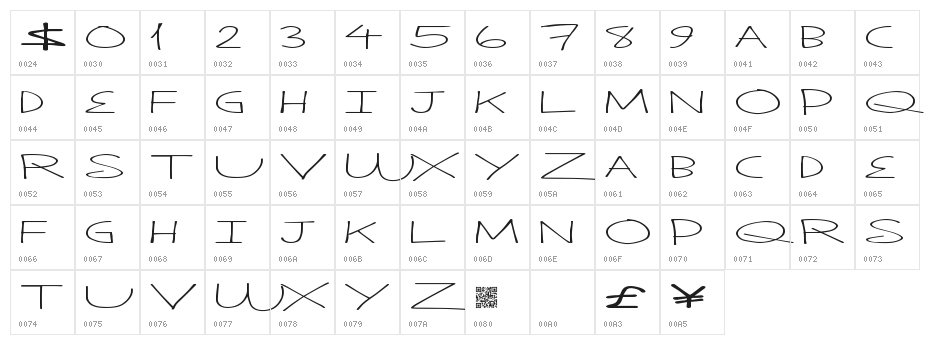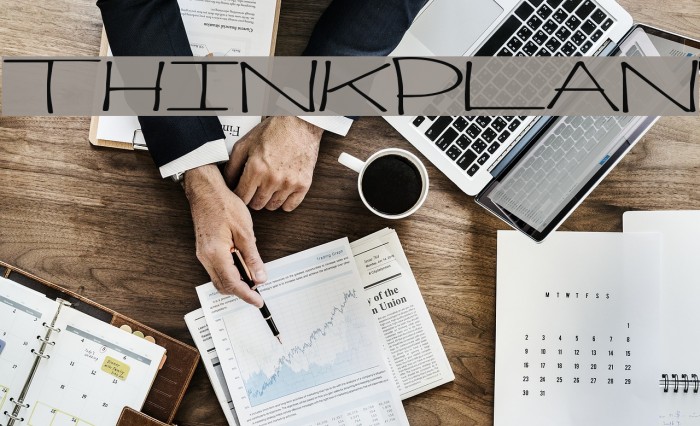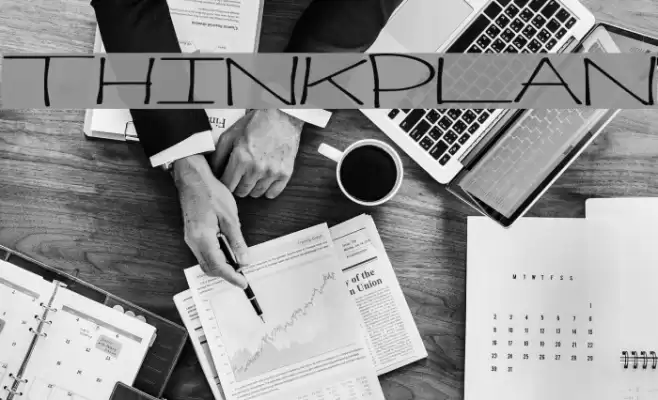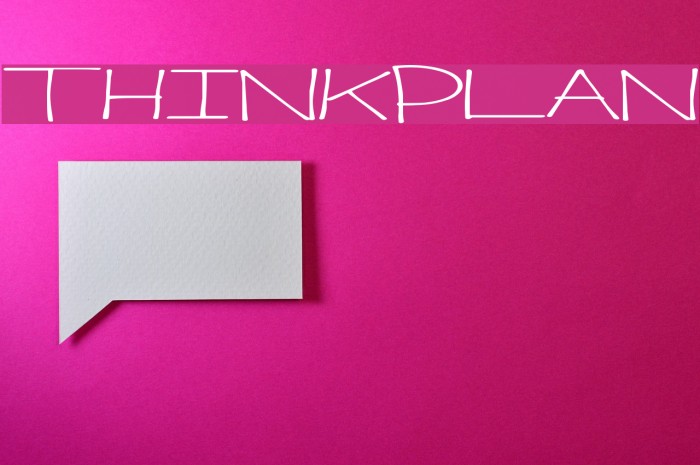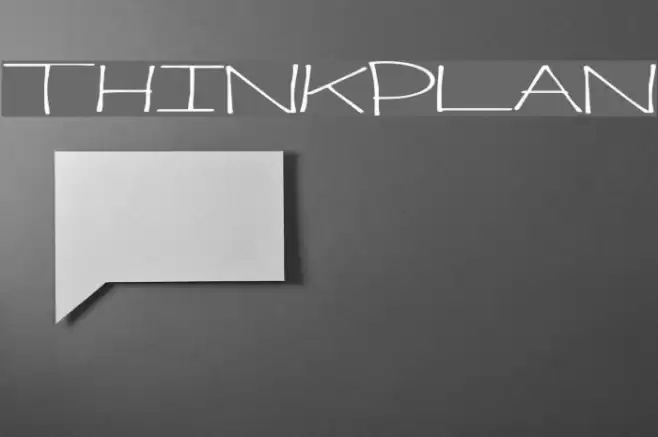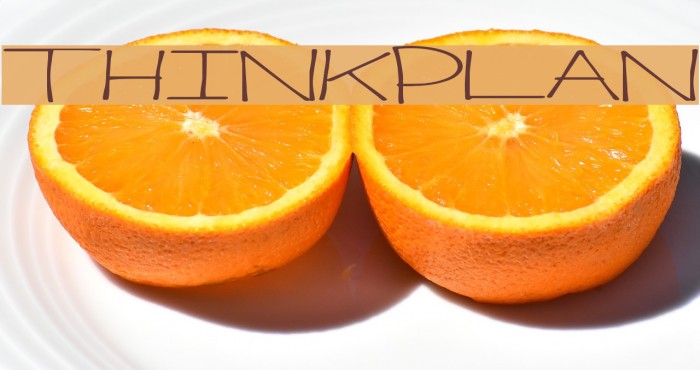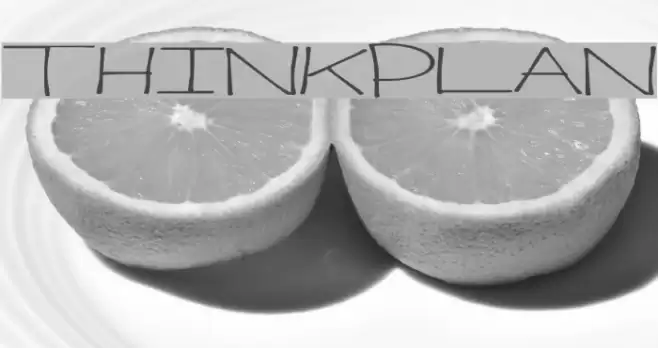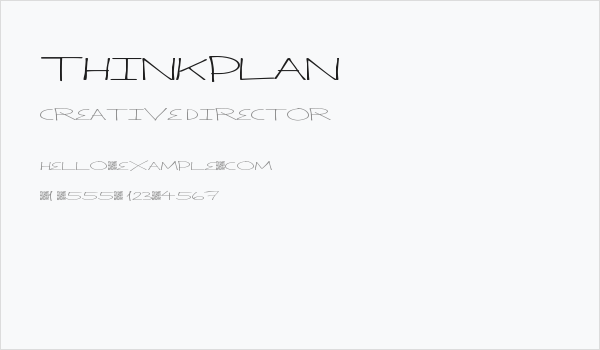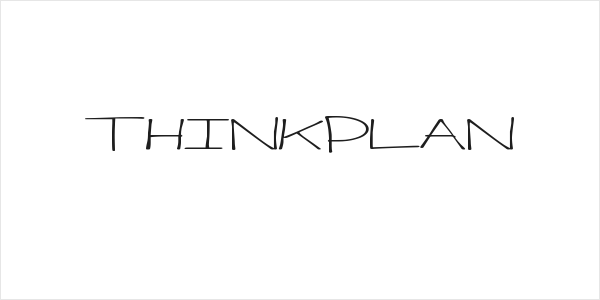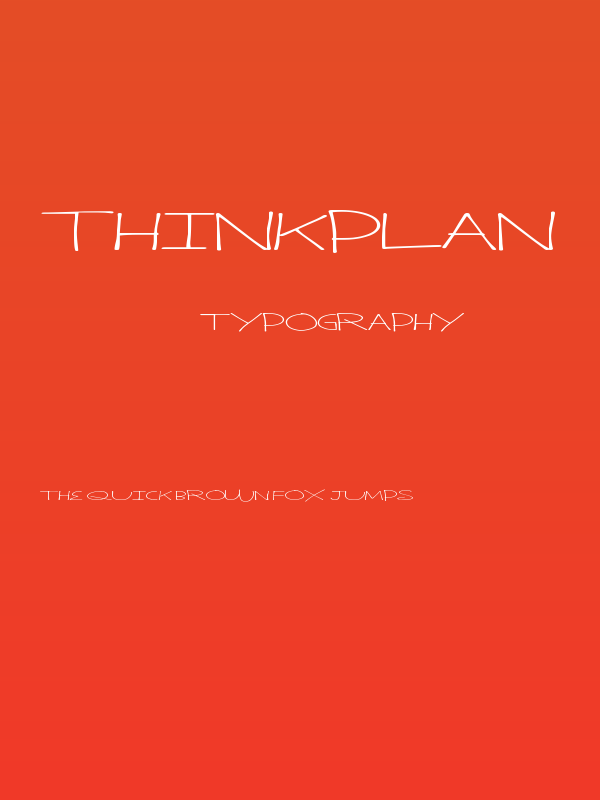
ThinkPlan Font
ThinkPlan Description
This font exhibits a unique, modern style characterized by its thin, elongated letterforms and distinctive geometric shapes. The uppercase letters are particularly striking, with angular lines and a futuristic feel. The lowercase letters maintain a consistent style, offering a seamless transition between characters. Numbers are crafted with the same attention to detail, ensuring readability while maintaining the font's overall aesthetic. Special characters are included, adding versatility to the font's use. The design is clean and minimalistic, making it suitable for a variety of applications where a contemporary and stylish look is desired.
| Proposed Projects | Ideal for branding, logos, headlines, and modern design projects requiring a sleek and stylish appearance. |